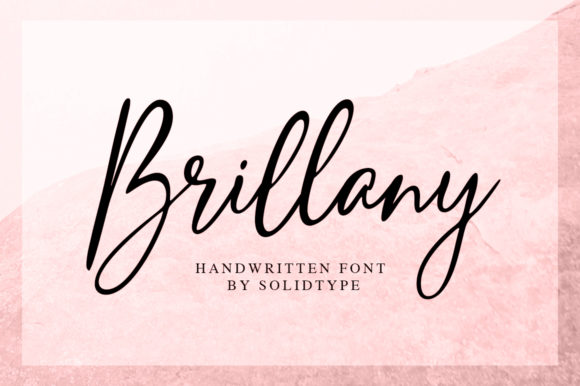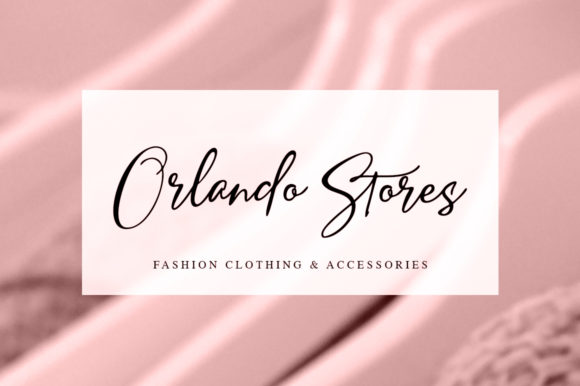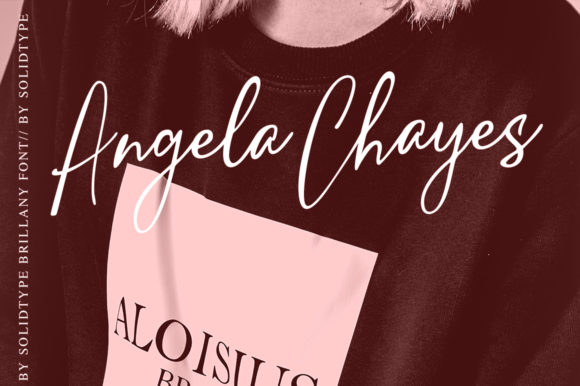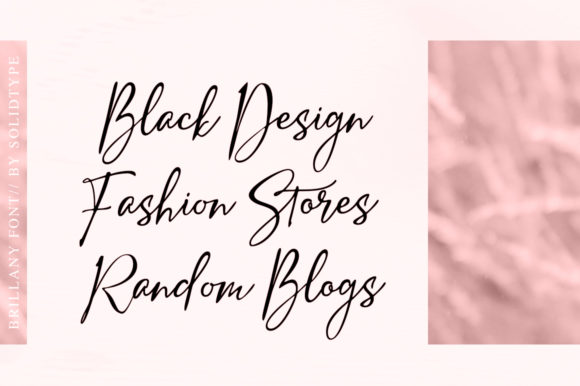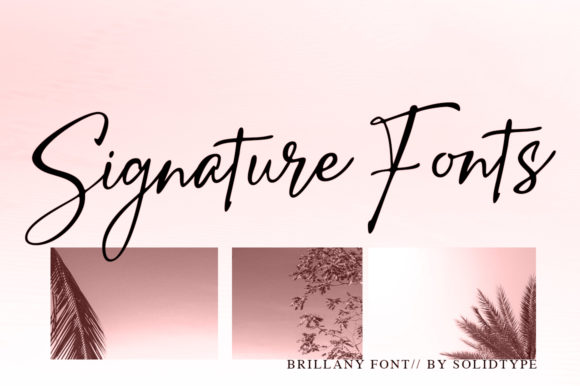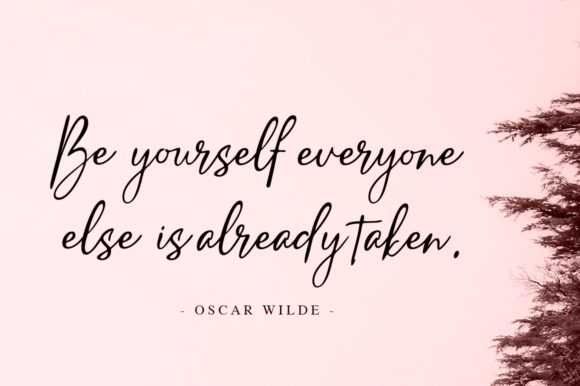
Brillany Font
About Brillany Font
Brillany is a handwritten font with a modern and fashionable look. It will elevate a wide range of design projects to the highest level, be it branding, headings, wedding designs, invitations, signatures, logos, labels, and much more!